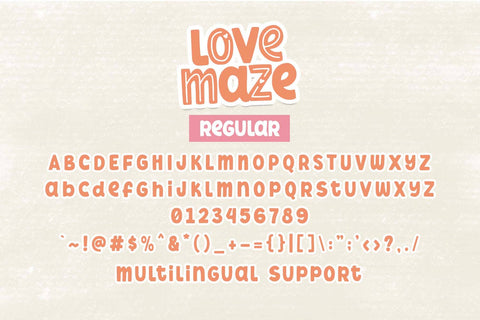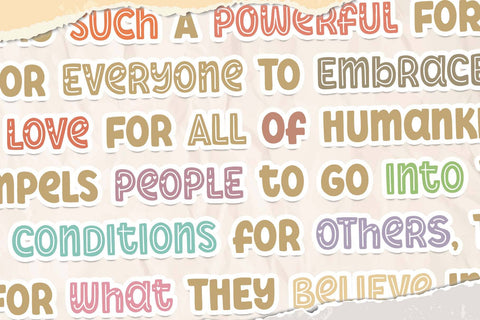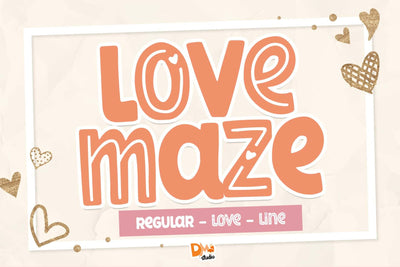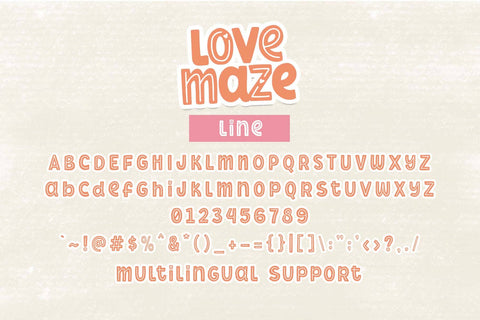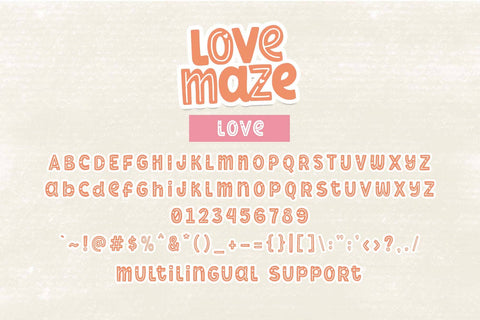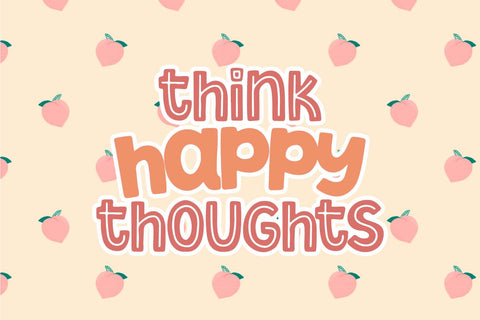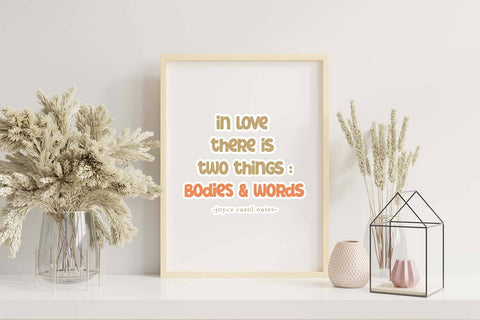
Love Maze Font
Love Maze Font is a captivating and versatile typeface crafted to infuse your designs with love and elegance. With its graceful letterforms and romantic charm, this font adds a touch of sophistication to wedding invitations, greeting cards, branding, and more. Navigate the enchanting journey of design with the Love Maze Font.
- Romantic and Elegant Design: The Love Maze Font features graceful letterforms and romantic charm, perfect for conveying love and sophistication in your designs.
- Versatility in Application: Ideal for a wide range of design projects, including wedding invitations, greeting cards, branding, and more, adding a touch of romance and elegance to your creations.
- Uppercase and Lowercase Letters: Both uppercase and lowercase letters included for creative flexibility and seamless integration into your designs.
- Punctuation and Symbols: Comprehensive set of punctuation marks, numerals, and symbols for consistent and versatile use in your designs.